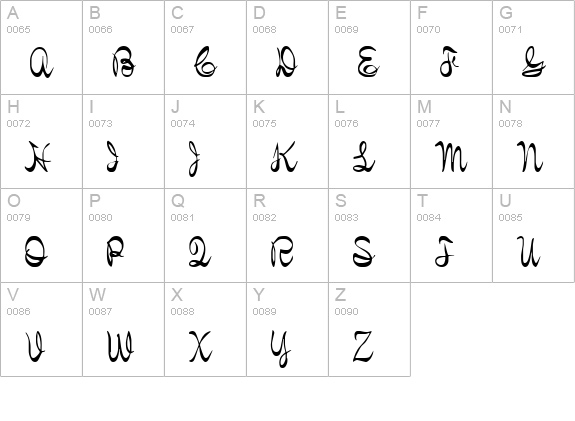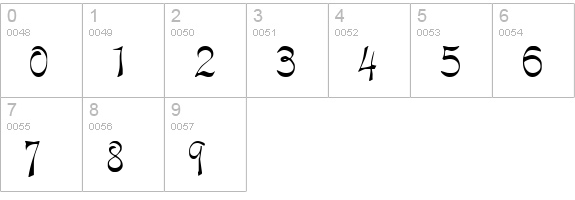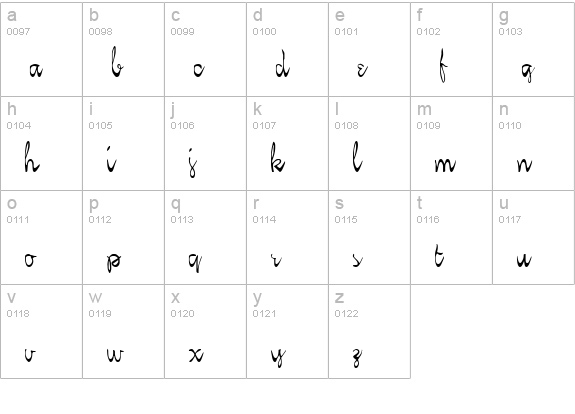
Eleven Font Details
Eleven font is a modern and stylish typeface that exudes elegance and sophistication. With its clean lines and sleek design, Eleven font is perfect for a wide range of design projects, from branding to editorial design. This versatile font is sure to make your text stand out and grab the attention of your audience. The best part? Eleven font is completely free to download at FontsMarket.com. Whether you're a designer looking to add a touch of class to your work or a business owner wanting to elevate your branding, Eleven font is the perfect choice. Download it today and see the difference it can make in your projects.